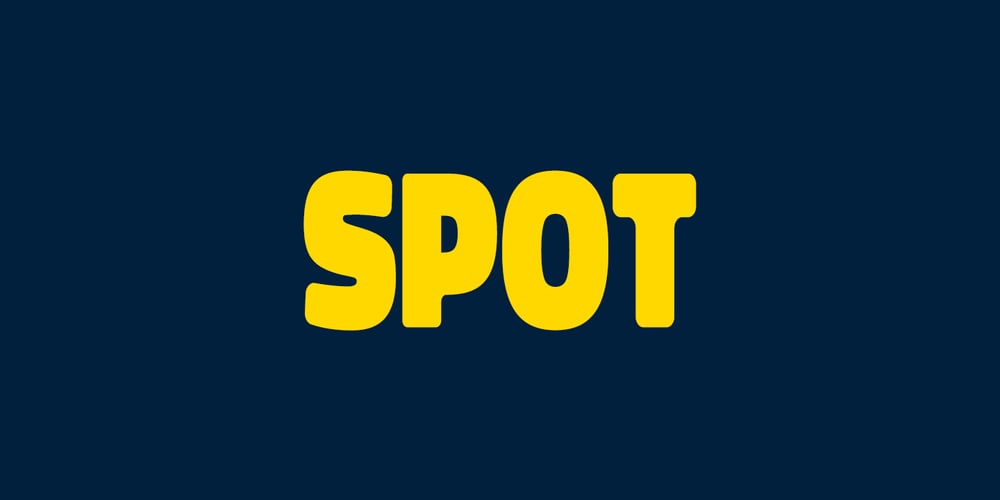
Spot Font Family was designed by Jean Johnson and published by Designova. Spot contains 2 styles and family package options. SPOT is a unique and modern all-caps typeface for headlines, big text, branding, logotypes & display usage. This font is also perfect for creating outstanding logos, promotional content and marketing graphics that can really grab attention from your visitors. Please see the examples shown above to get an idea about the capability of this typeface.–Uppercase